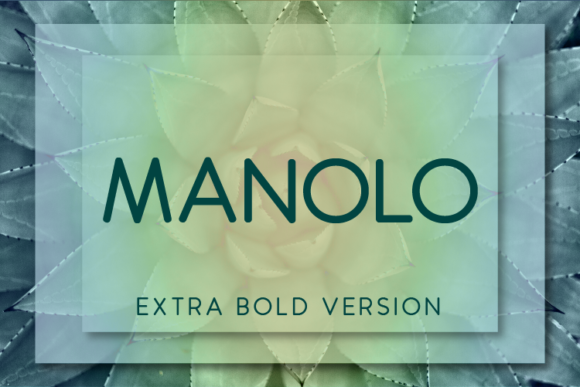
**Introducing Manolo Extra Bold: A Font of Elegance and Distinction**
Embark on a typographic adventure with Manolo Extra Bold, a sans serif font that exudes sophistication and style. Its clean lines and refined curves will elevate your designs to new heights, leaving an unforgettable impression on your audience.
**Crafted for Versatility**
Manolo Extra Bold is a true chameleon in the world of fonts. Its adaptability shines in a myriad of applications, from branding and website design to captivating social media graphics and eye-catching titles. Its versatility empowers you to create stunning visuals that resonate with your brand's unique personality.
**A Touch of Class for Your Creations**
Effortlessly elevate your designs with the timeless elegance of Manolo Extra Bold. Its classic sans serif style complements any project, adding a touch of sophistication and refinement. Whether you're crafting a chic logo, designing an informative website, or creating captivating quotes, this font will infuse your work with an air of distinction.
**Bold Statements, Memorable Impressions**
Make a bold statement with Manolo Extra Bold. Its commanding presence ensures that your designs will leave a lasting impact. Use it for attention-grabbing headlines that demand notice or create unforgettable subheadings that guide your readers through your content. With Manolo Extra Bold, your message will resonate with clarity and impact.
**Unleash Your Creativity**
With Manolo Extra Bold as your canvas, your creativity knows no bounds. Its clean lines provide the perfect foundation for you to showcase your artistic vision. Experiment with colors, textures, and compositions to create unique and captivating designs that will set your work apart.
**Designed with Passion by Huntype**
Manolo Extra Bold is the brainchild of Huntype, a team of dedicated typographers who pour their passion into creating fonts that inspire and empower designers. Their unwavering commitment to quality ensures that every curve, every line, and every detail of Manolo Extra Bold is meticulously crafted to perfection.